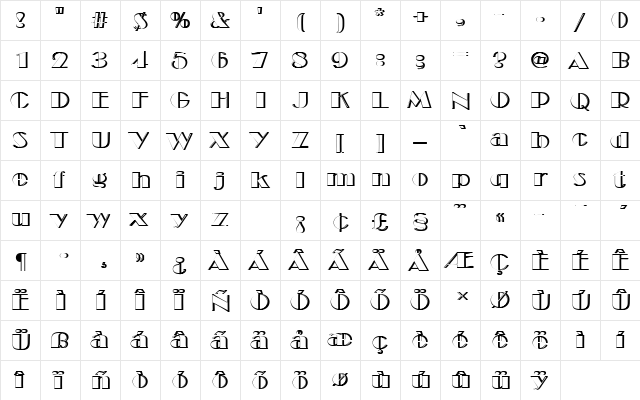
BroadwayDRe1 Regular
Design Context for BroadwayDRe1 Typeface
BroadwayDRe1 is a composed and adaptable typeface that performs quietly and consistently across a wide range of design contexts.